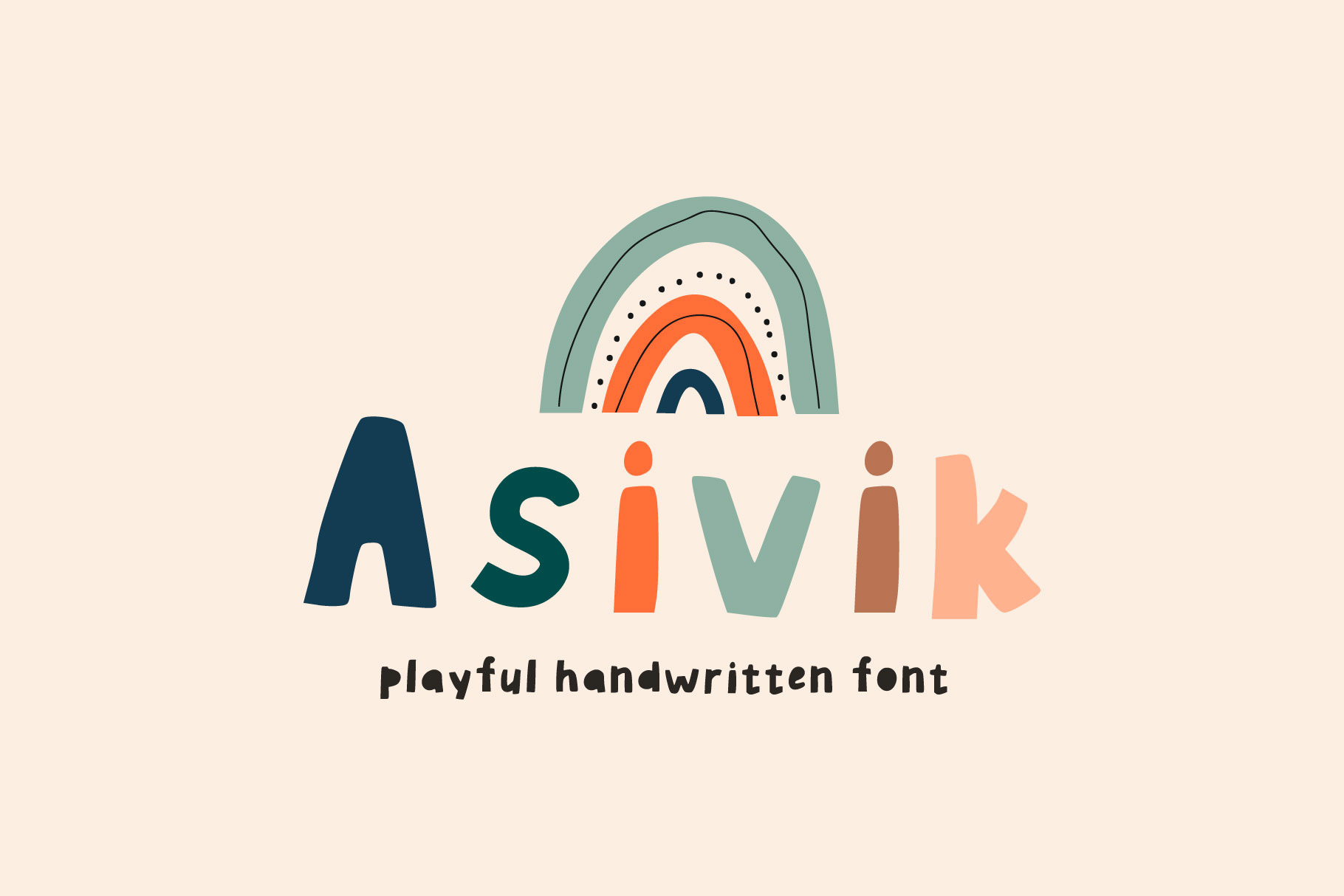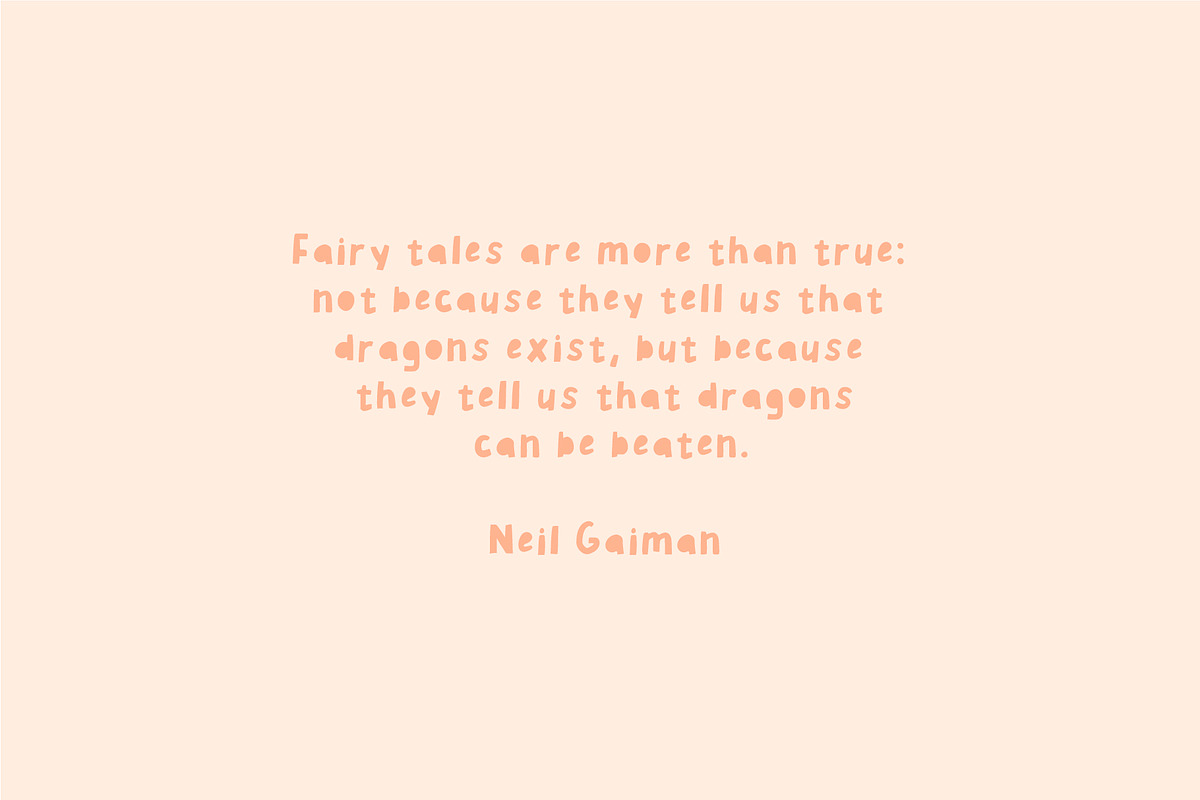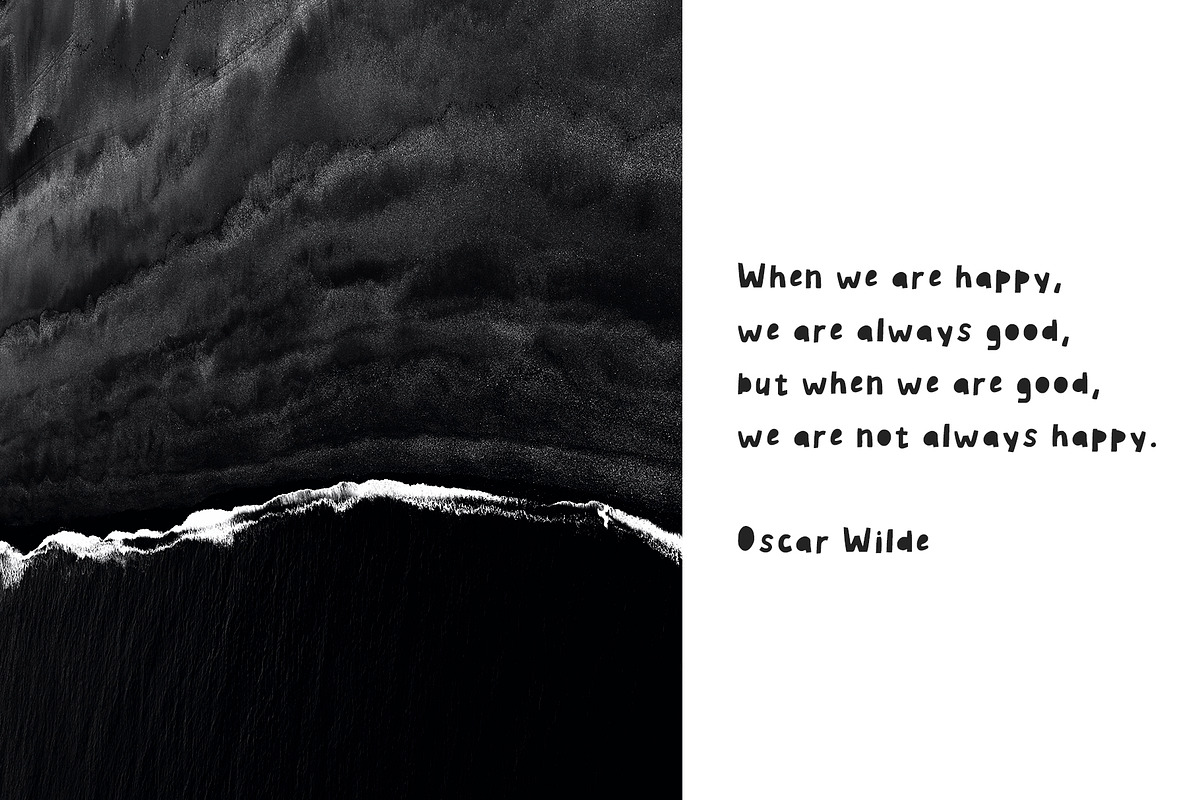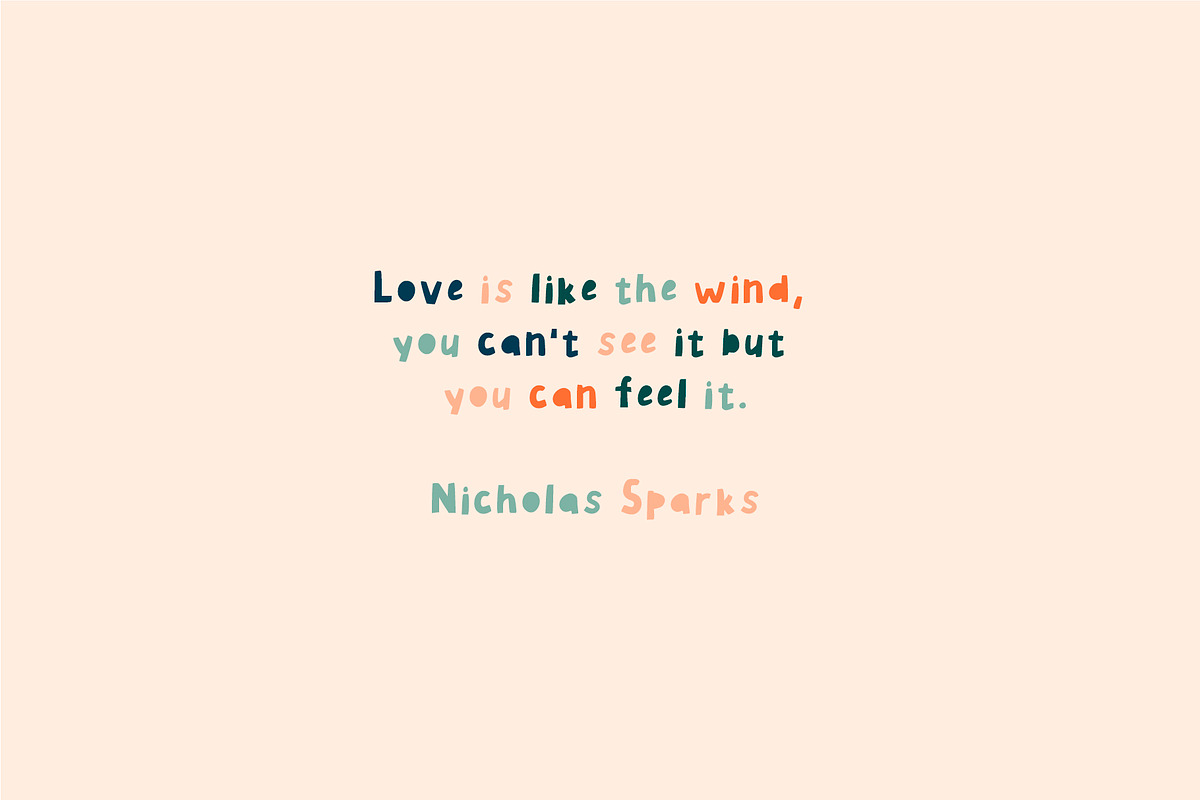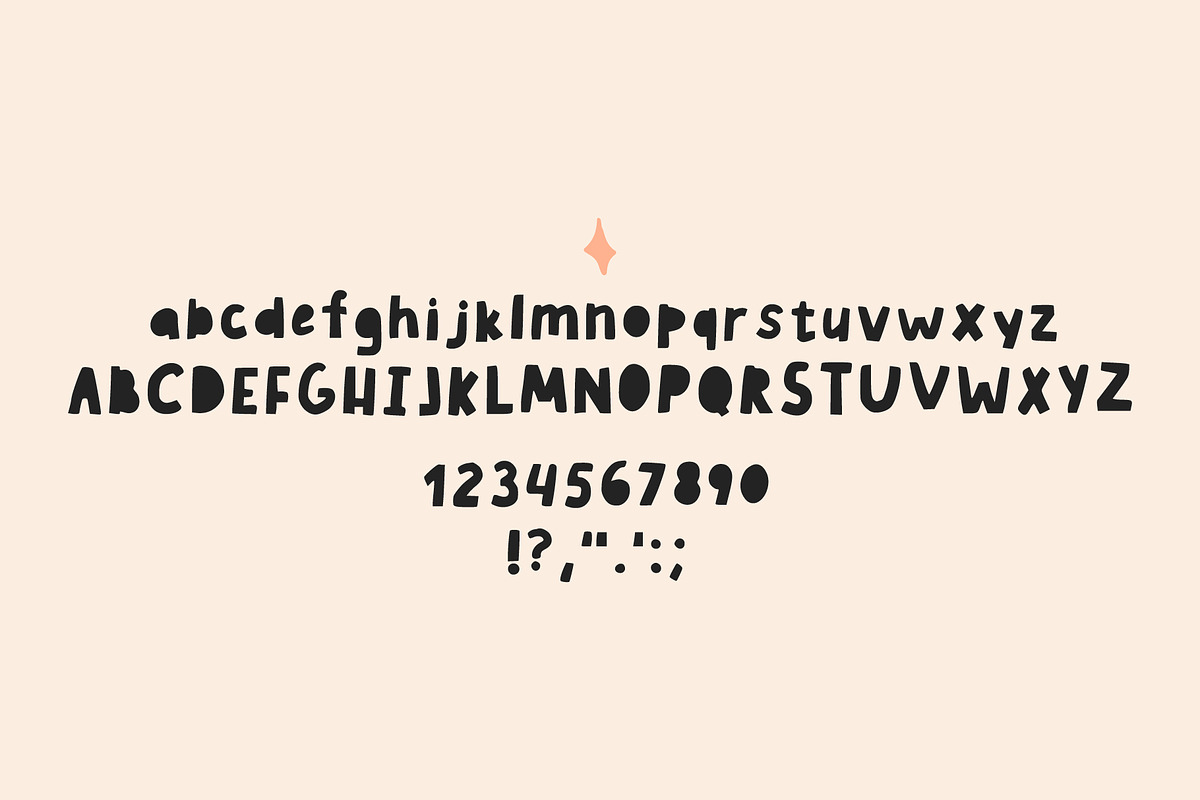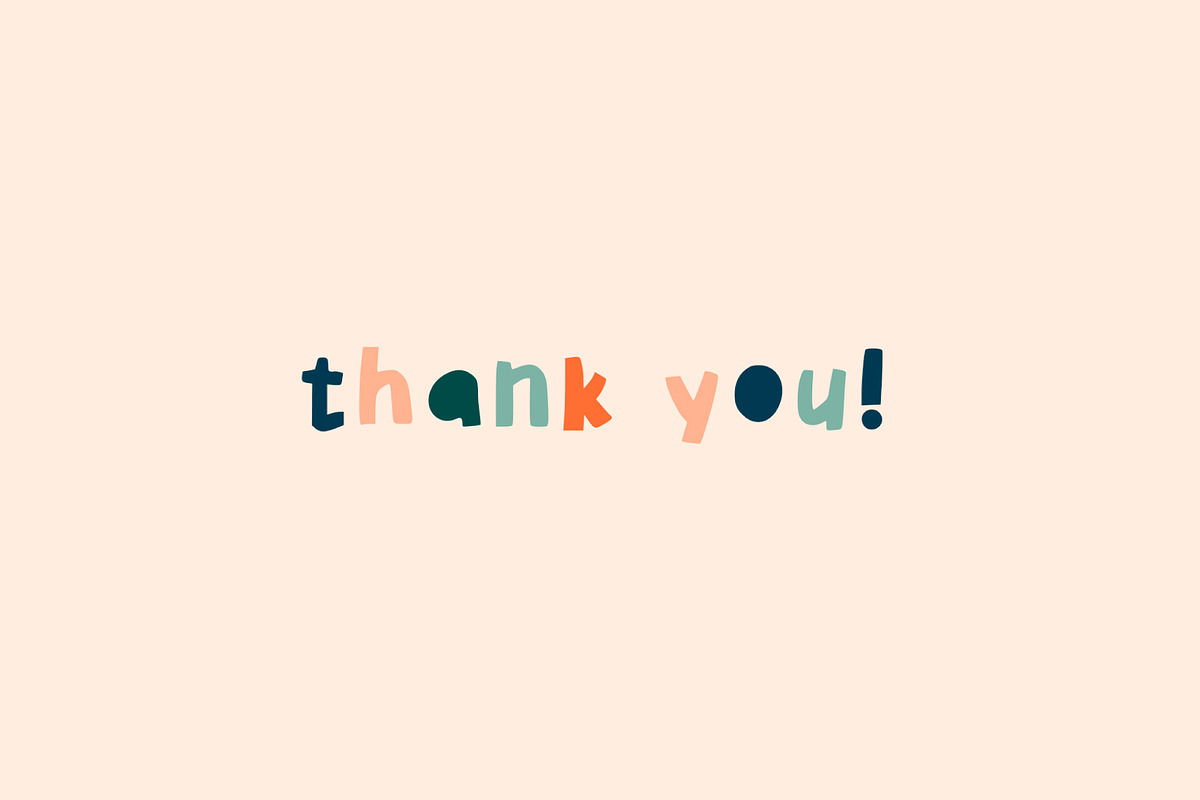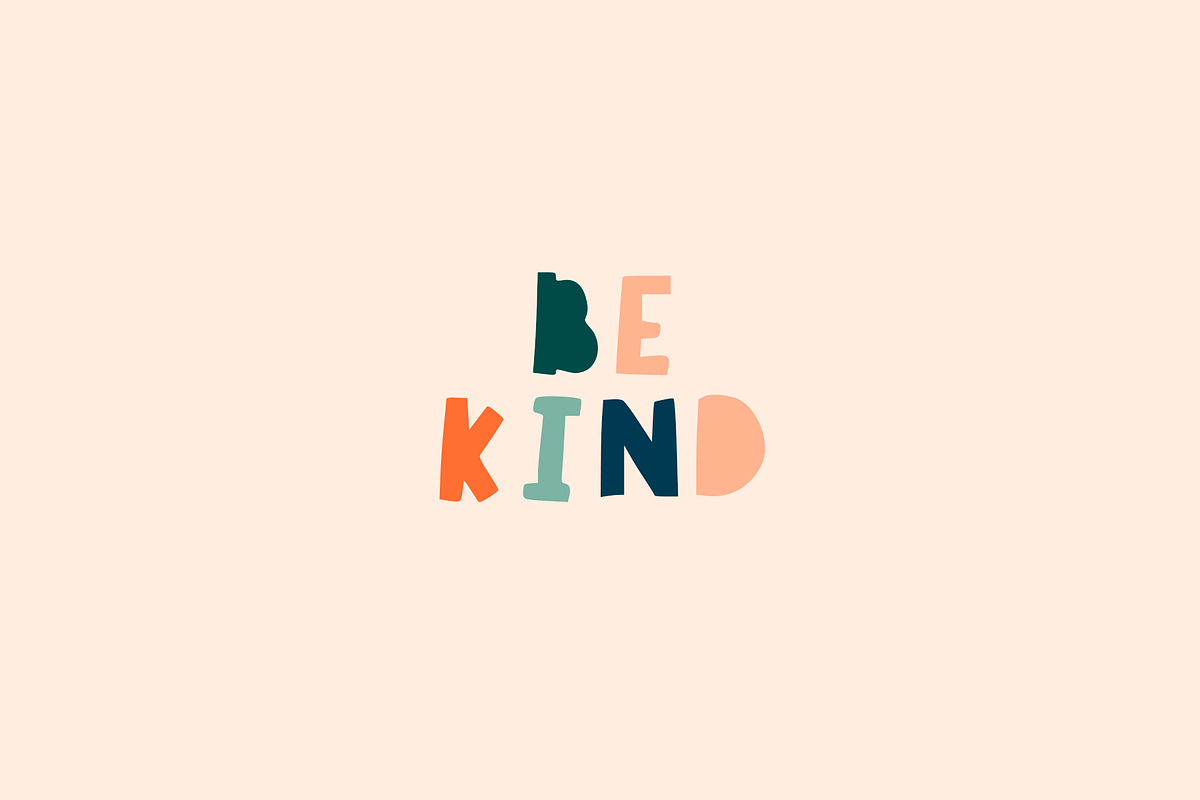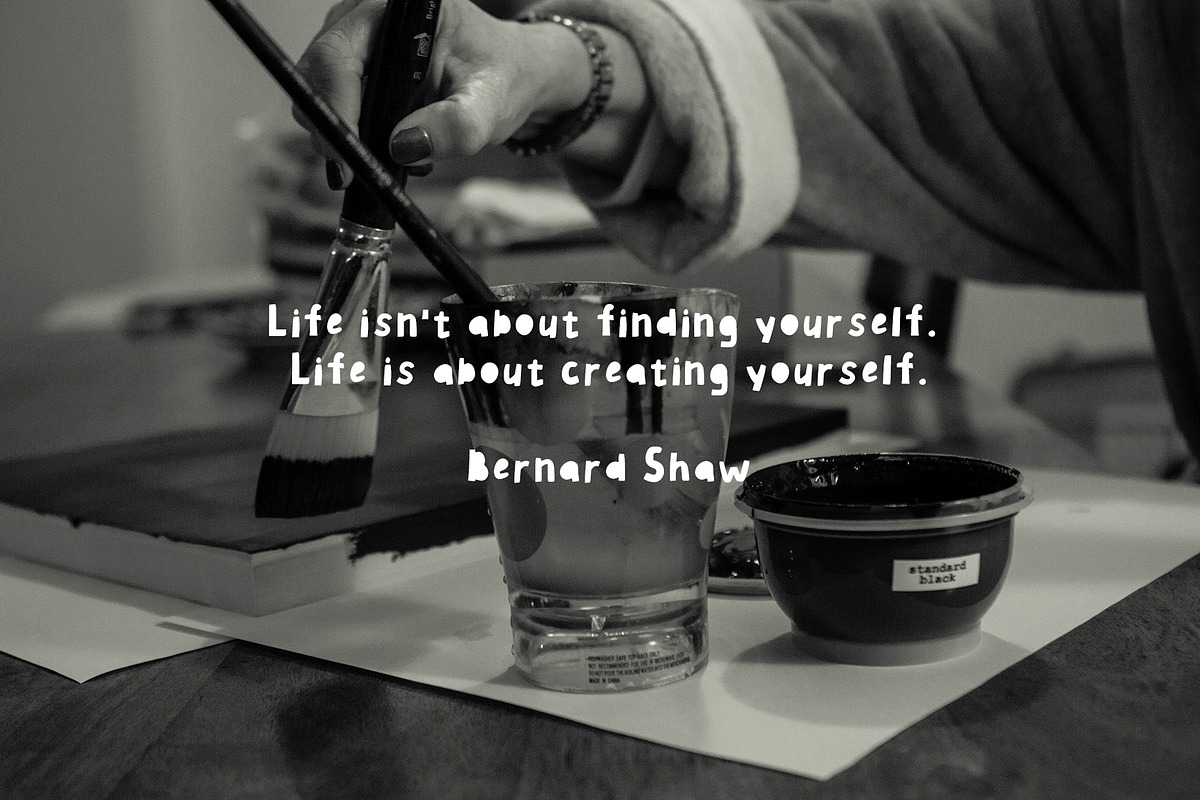
Handwritten cutout font ASIVIK
Asivik is a handwritten childish font.
It's for your designs as a quotes, social media posts, headers, posters, card, etc.